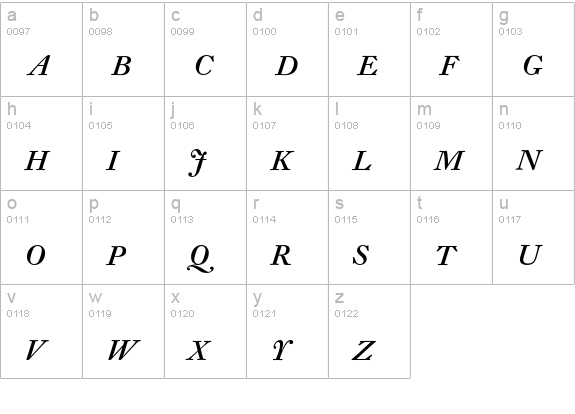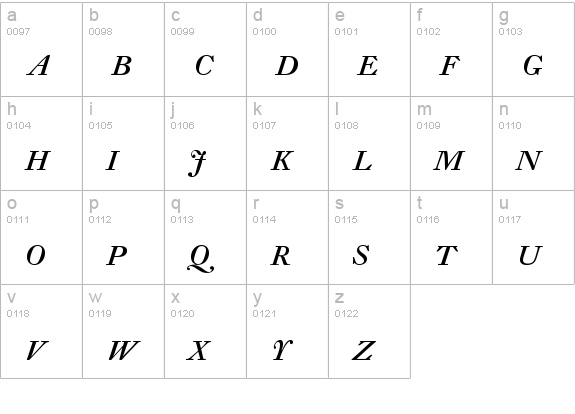
DTL Fleischmann D Italic Caps is a distinctive, italic variant in the DTL typeface family \xE2\x80\x94 well suited to design and typography projects.
The DTL Fleischmann D Italic Caps font is a visually striking typeface that exudes elegance and sophistication. Its sleek, slanted design adds a touch of flair to any project, making it perfect for use in headings, titles, and other prominent text elements. The italicized letterforms are gracefully crafted, with a balance of sharp angles and flowing curves that create a sense of movement and dynamism. This font is ideal for conveying a sense of modernity and innovation, while still maintaining a timeless appeal. Its versatility allows it to be used in a variety of design applications, from branding and advertising to editorial and web design. Whether you're looking to make a bold statement or add a subtle touch of style, the DTL Fleischmann D Italic Caps font is sure to elevate your work to the next level. Best of all, this font is available for free download at FontsMarket.com. So go ahead and enhance your projects with this stunning typeface today!